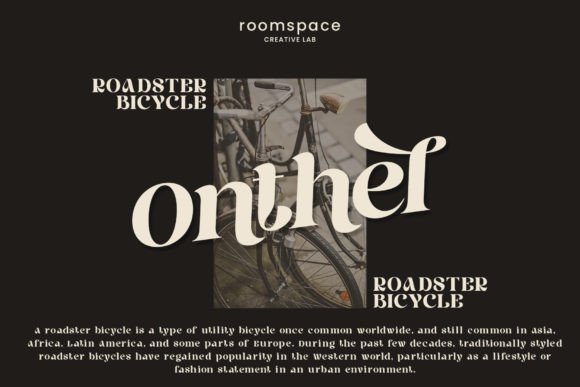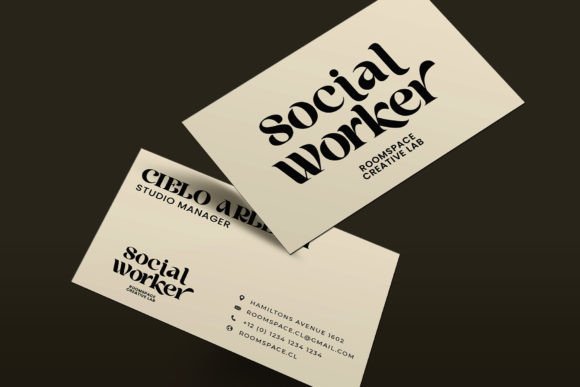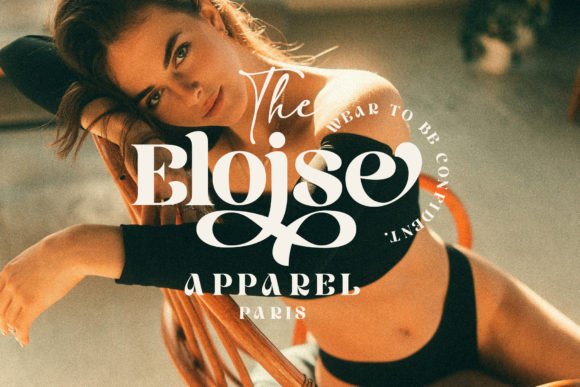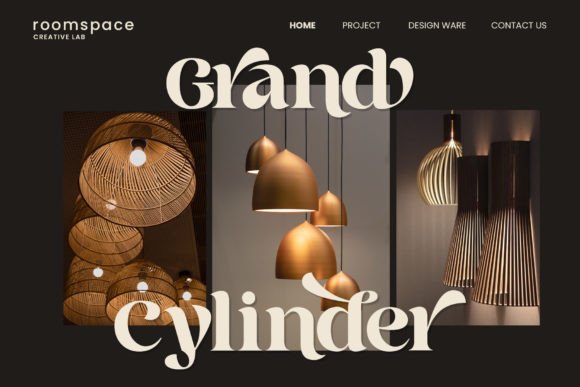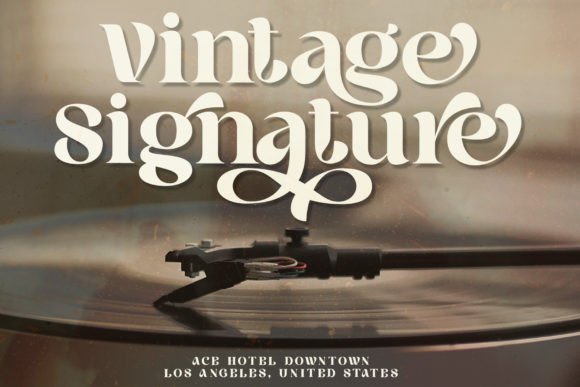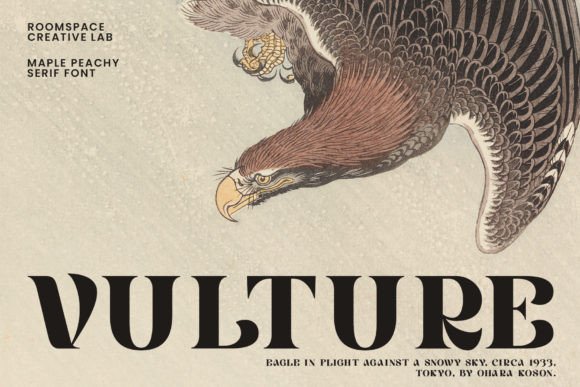
Introduction to Maple Peachy Font
Have you ever been stuck in a creative rut, searching for the perfect font to elevate your next project? For many designers, finding that elusive combination of style and versatility can be a daunting task. But what if I told you that the solution is closer than you think? Enter Maple Peachy Font, a stunning modern retro font that’s poised to take your creative projects to the next level.
With its elegant tail swashes and timeless vintage character, Maple Peachy Font is the perfect design resource for anyone looking to make a statement. Whether you’re creating eye-catching logos, beautiful wedding invitations, or high-quality branding materials, this versatile font is sure to impress. Plus, with its transparent background and seamless compatibility with popular programs like Cricut, Silhouette, and Canva, you can get to creating amazing projects quickly and easily.
As a valuable addition to any designer’s toolkit, Maple Peachy Font offers a unique flair that’s hard to find elsewhere. And the best part? It’s available for free download, making it an accessible and affordable design resource for creatives of all levels.
Key Features of Maple Peachy Font
- Unique blend of modern and vintage styles, perfect for creative projects requiring a touch of sophistication.
- Includes a range of characters, including uppercase and lowercase letters, numbers, and punctuation marks, making it a versatile design resource.
Honest Review: Maple Peachy Font
As a designer, I’m always on the lookout for high-quality fonts to add some personality to my creative projects. Recently, I stumbled upon the Maple Peachy Font, and I’m excited to share my thoughts on this design resource.
- ✨ The font is beautifully crafted, with a unique blend of maple and peach-inspired styles that’s perfect for spring-inspired or summer-themed projects.
- ⚠️ The font may not be suitable for formal or professional projects, as its playful style may not convey the level of sophistication required.
- ⚠️ The font’s character set may not be as extensive as some other popular fonts, which could limit its use in certain creative projects.
Overall, I’m impressed with the Maple Peachy Font’s quality and versatility. While it may have some limitations, it’s a great addition to any designer’s toolkit, especially for those working on creative projects that require a unique and playful touch.
Introduction to Maple Peachy Font
The Maple Peachy Font is a high-quality design resource perfect for creative projects. Its unique and elegant style makes it an excellent choice for various applications, from digital designs to printed materials.
The Maple Peachy Font is perfect for various creative projects, including:
- Blog posts and social media graphics